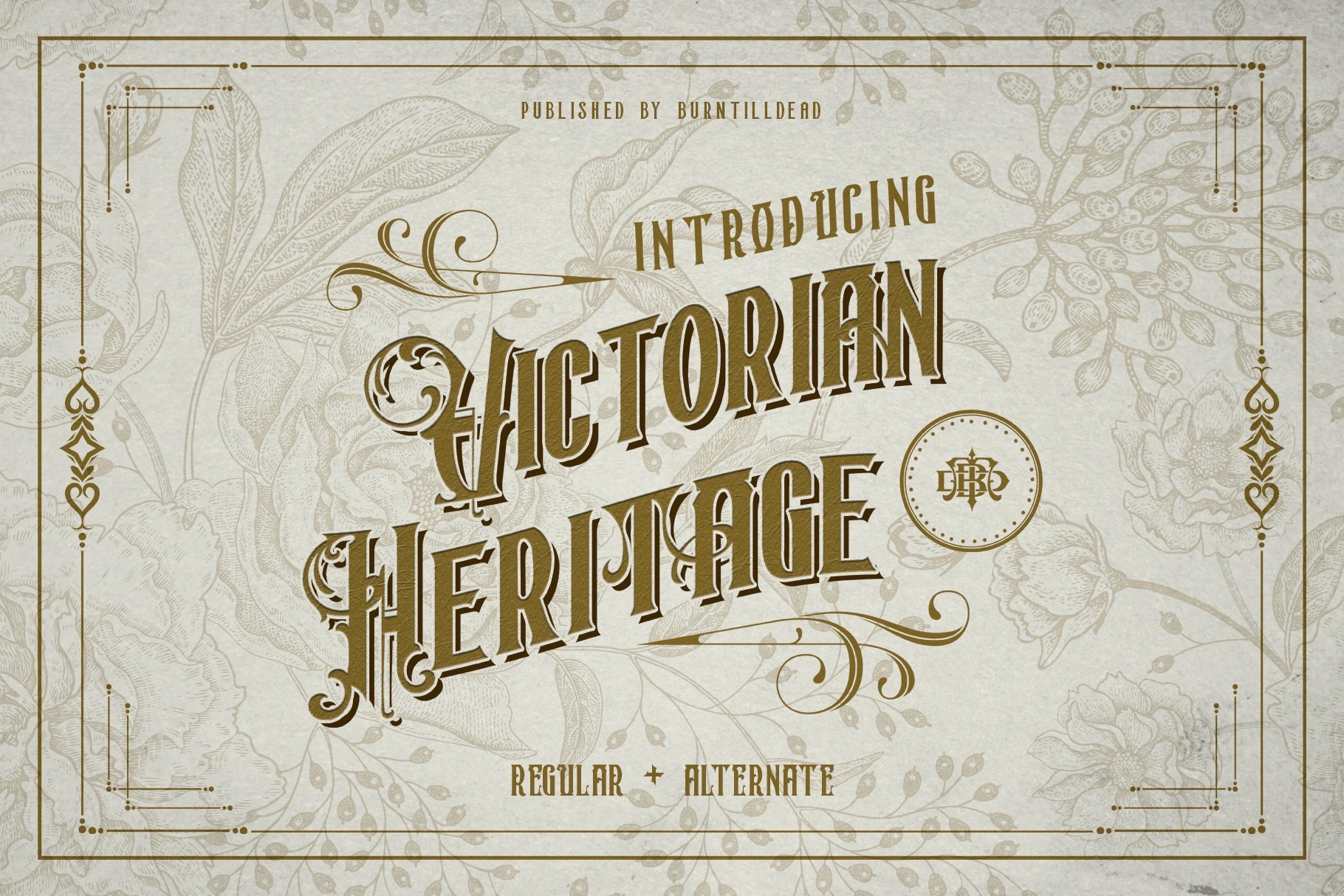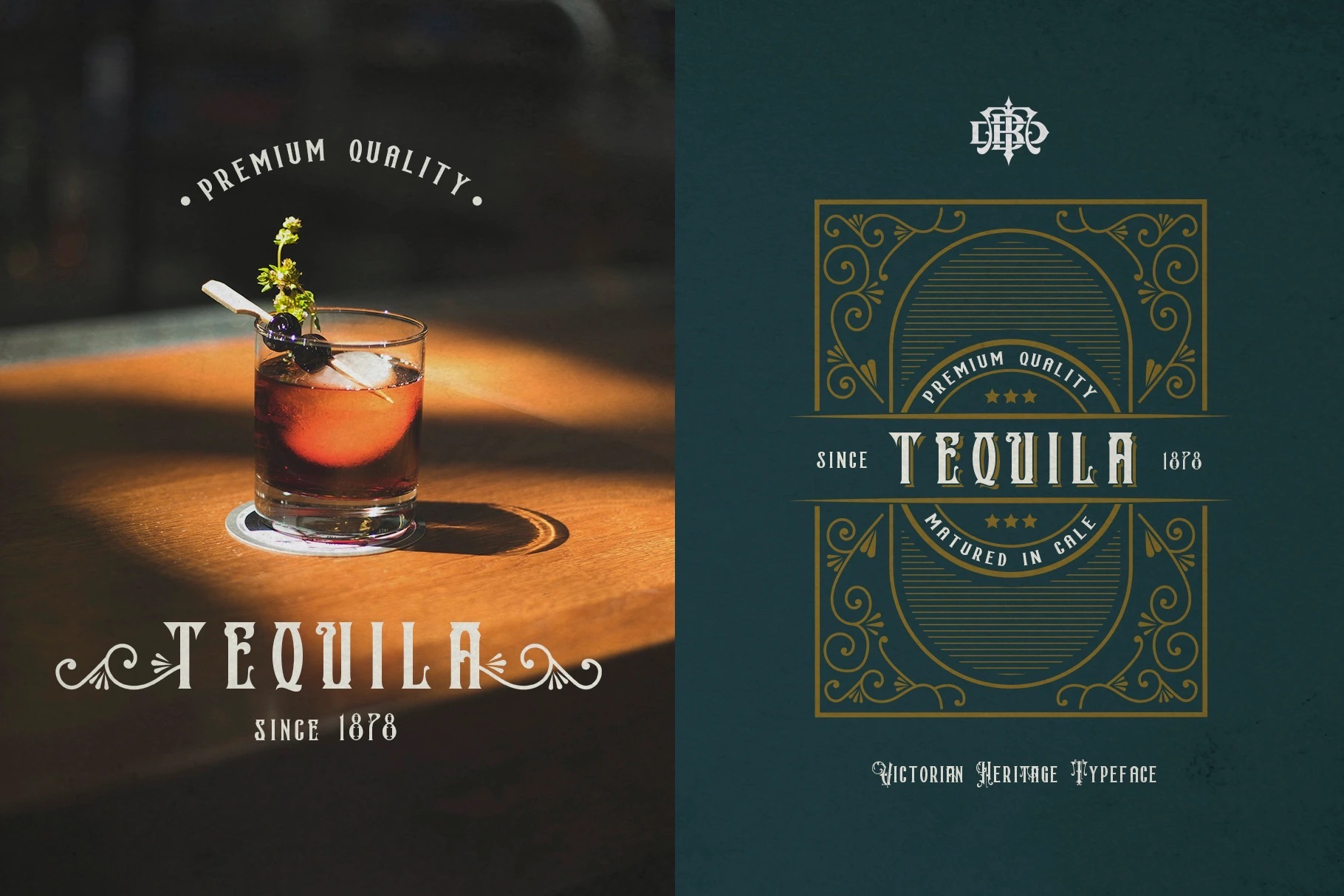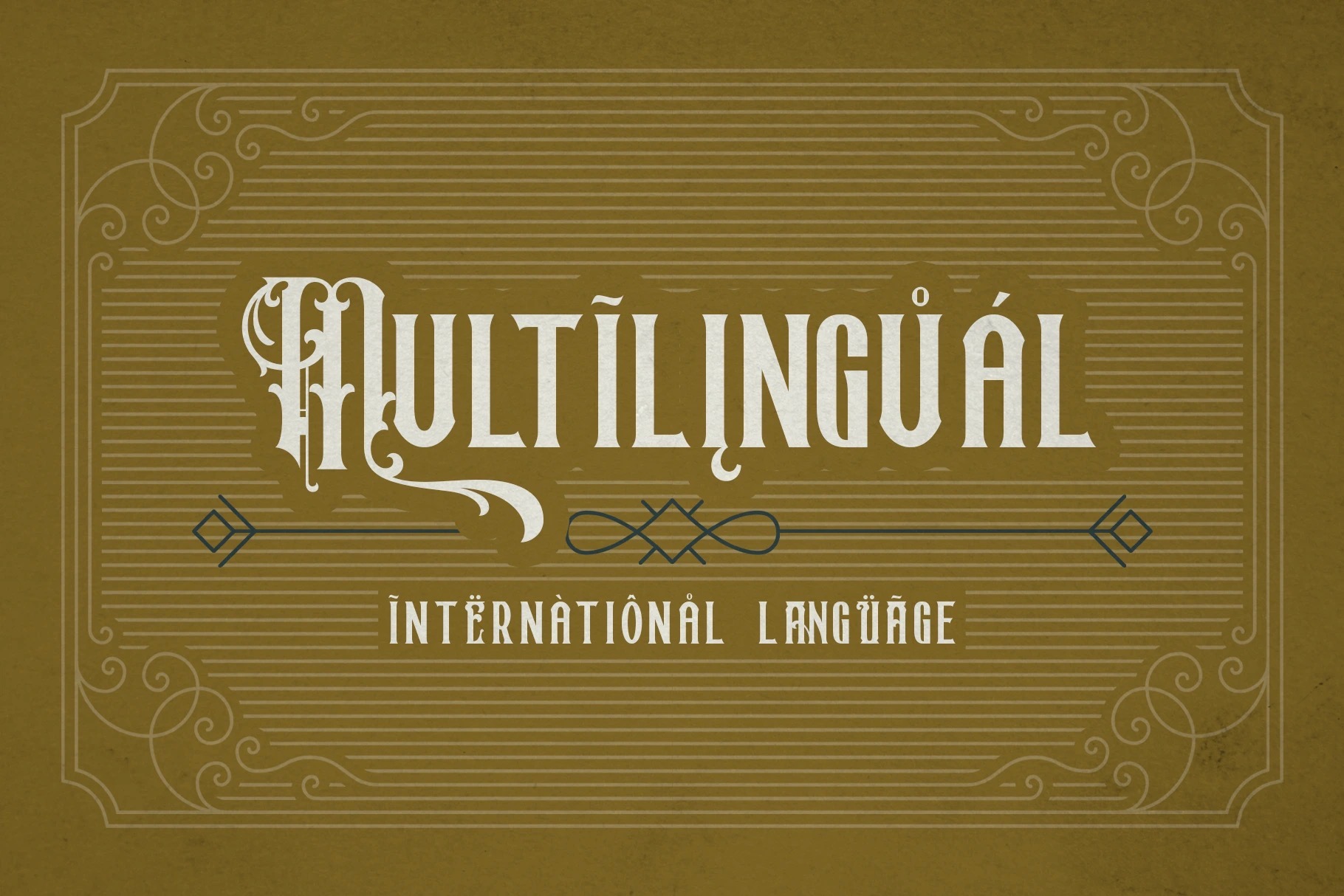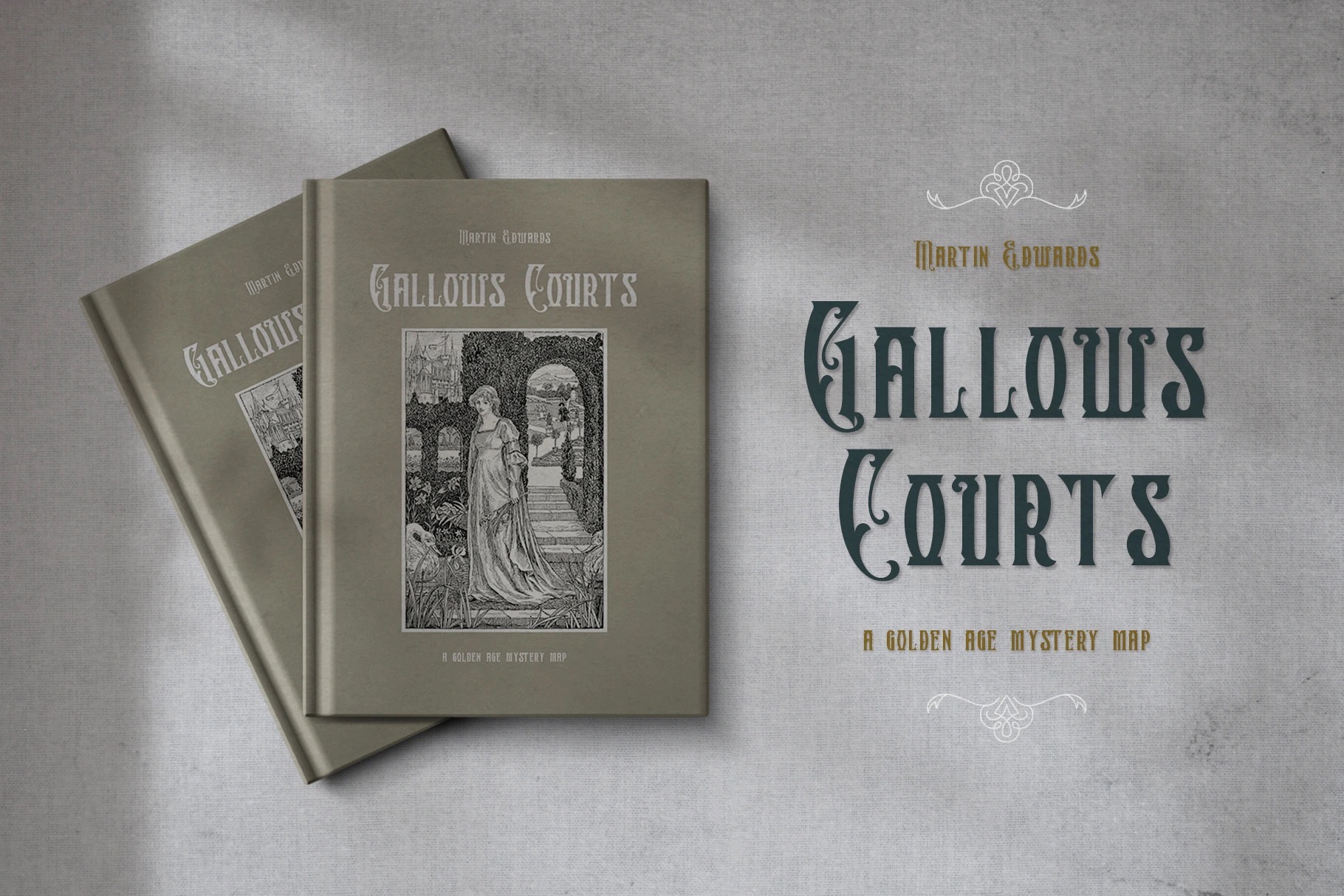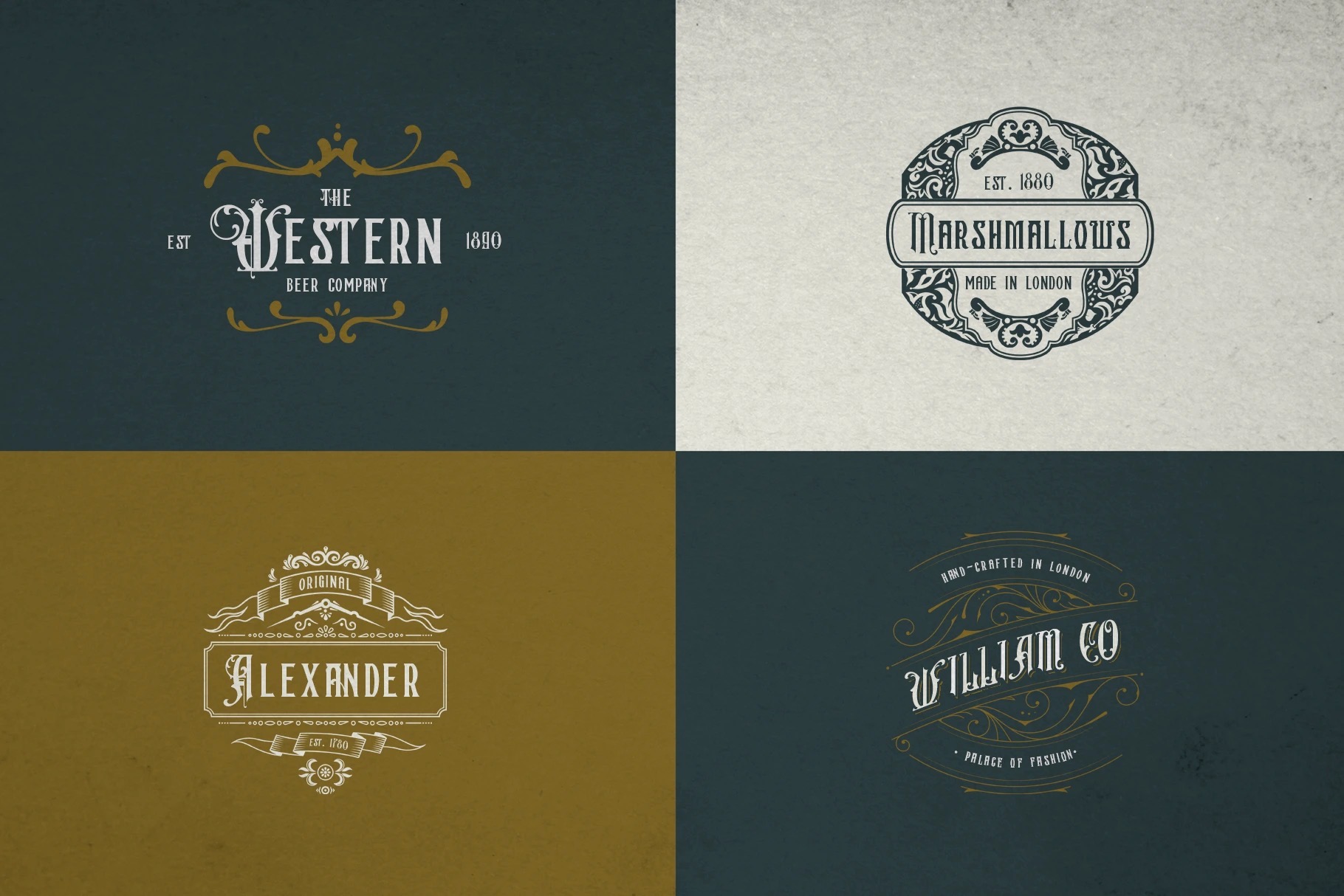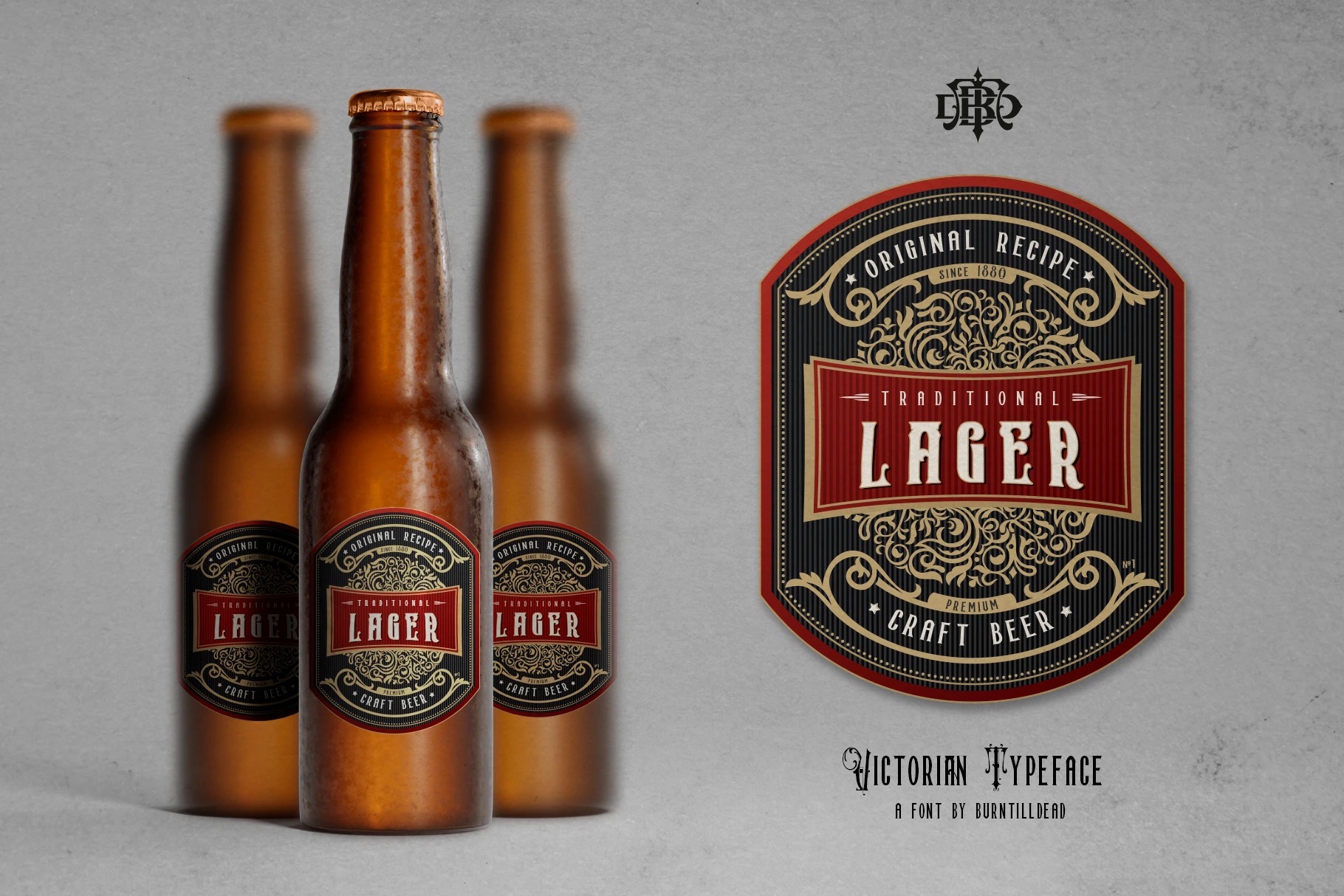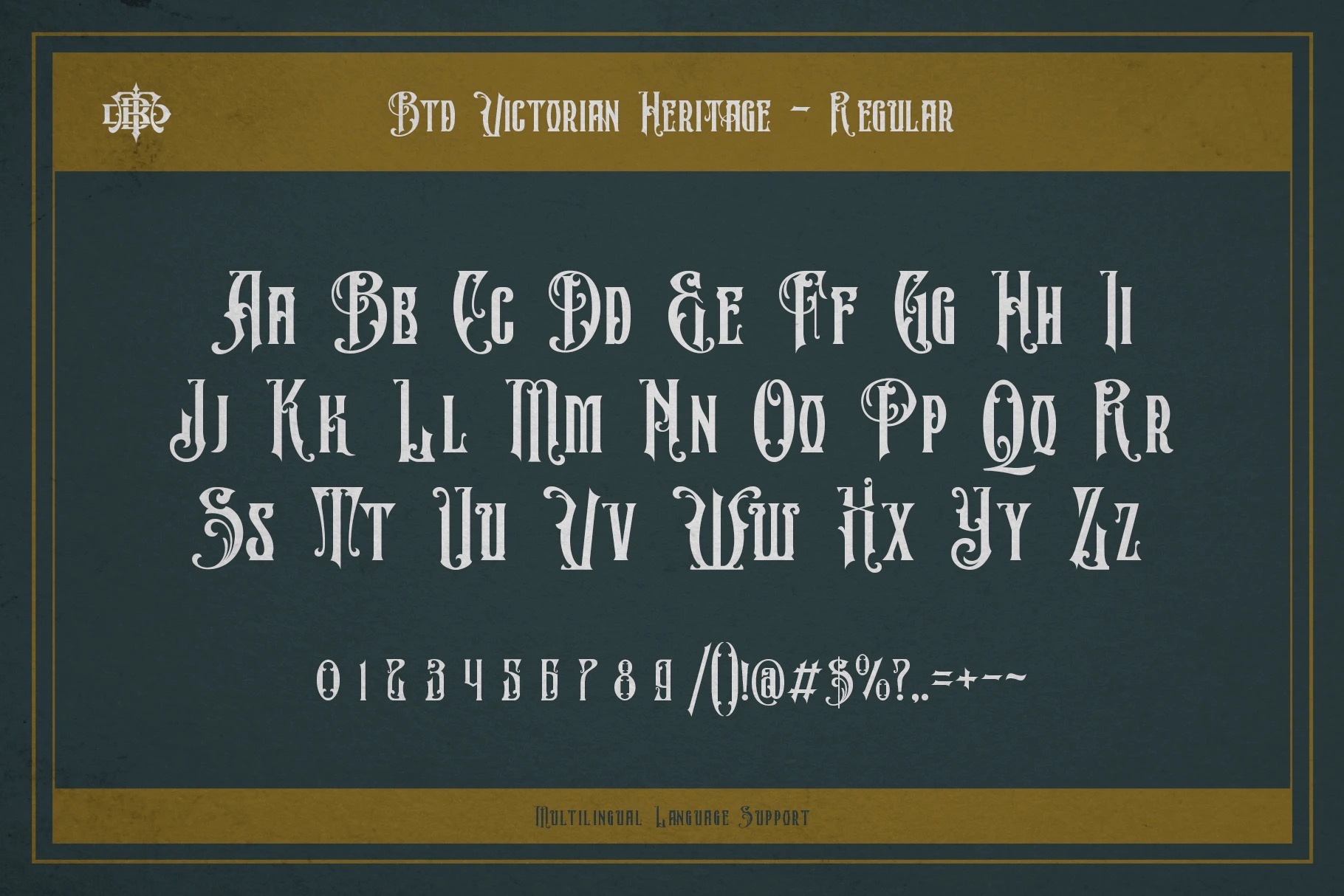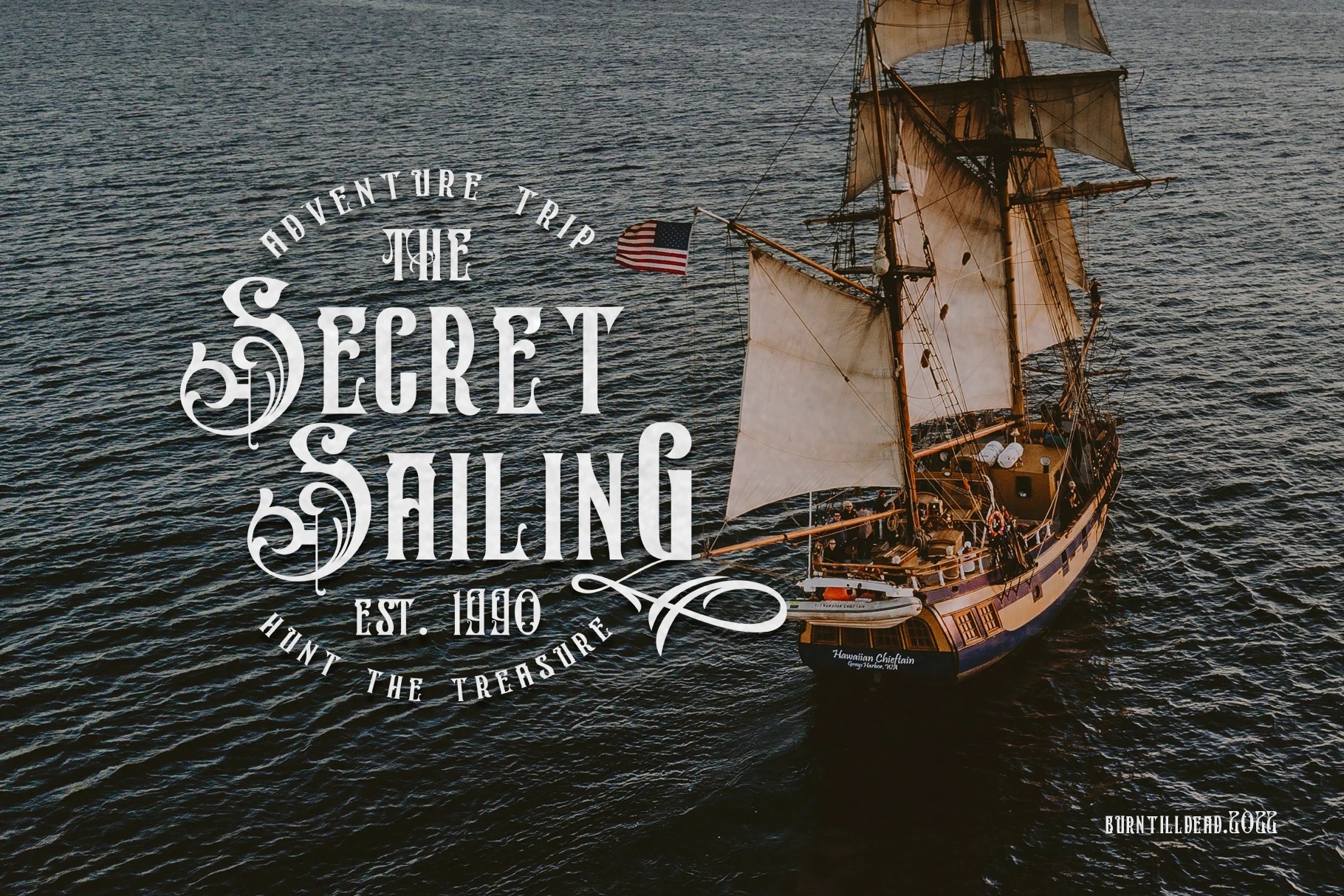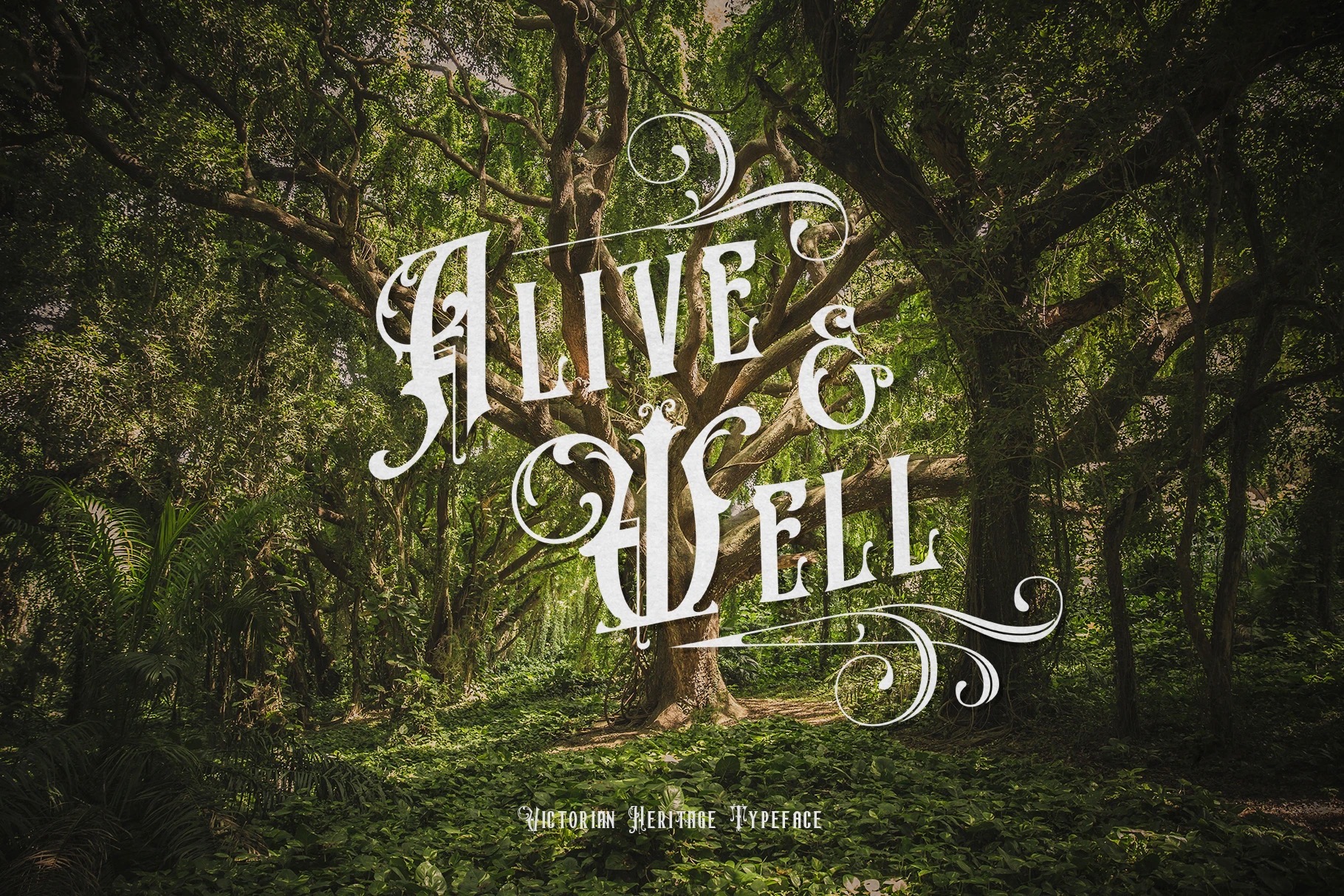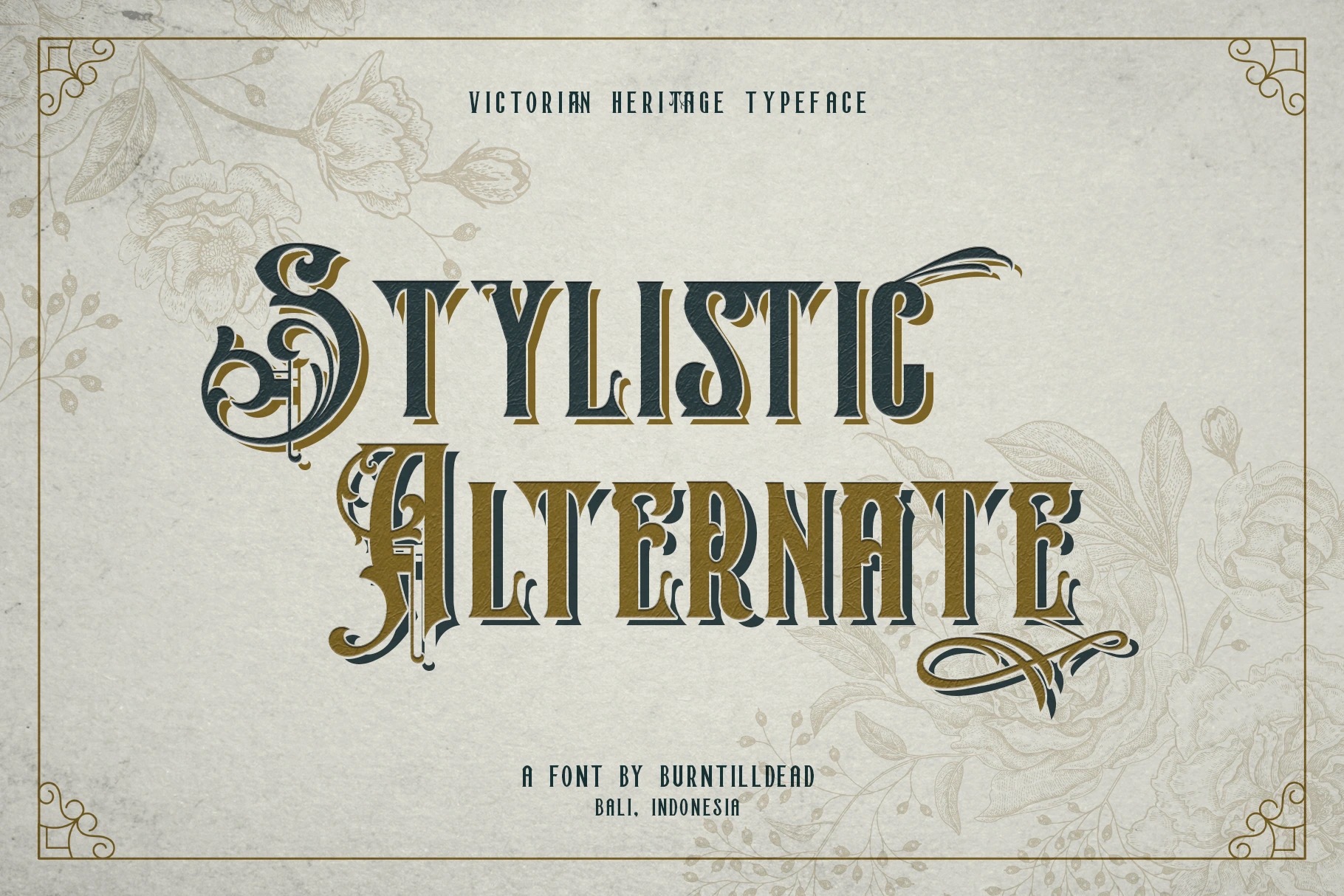
- Victorian Heritage
Make your designs looks memorable, vintage and classy with Victorian Heritage typeface. Really easy way to bring the old memories into your document, poster, logo, etc… Perfect choice for classical choice.
Very victorian, ornamental, decorative and classical. A solid combination that can bring your design, logo, document, website, etc. back to 1800 decade. Powered with regular style & decorative alternate style version. Multilingual font and playful one with alternate characters.